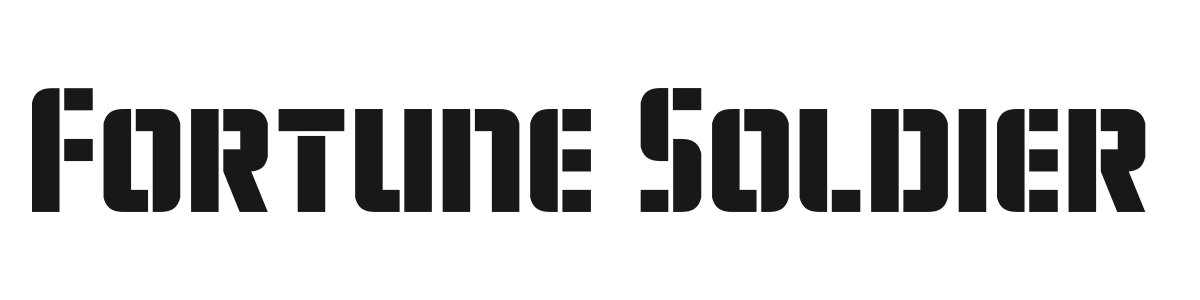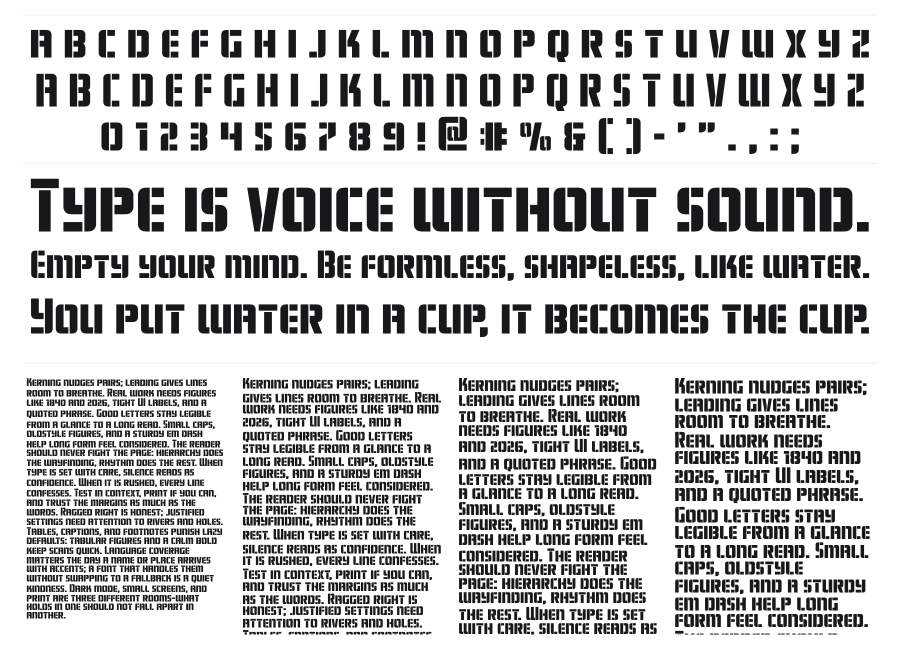
Fortune Soldier
Fortune Soldier is a bold condensed stencil font built from thick, squared-off rectangular strokes with classic stencil breaks throughout. The geometry is uncompromising: uniform stems, tight spacing, and a heavy weight that reads as military and industrial from a distance. It comes in 25 variants including 3D, halftone, chrome, and laser treatments, making it a versatile toolkit for action-oriented design.